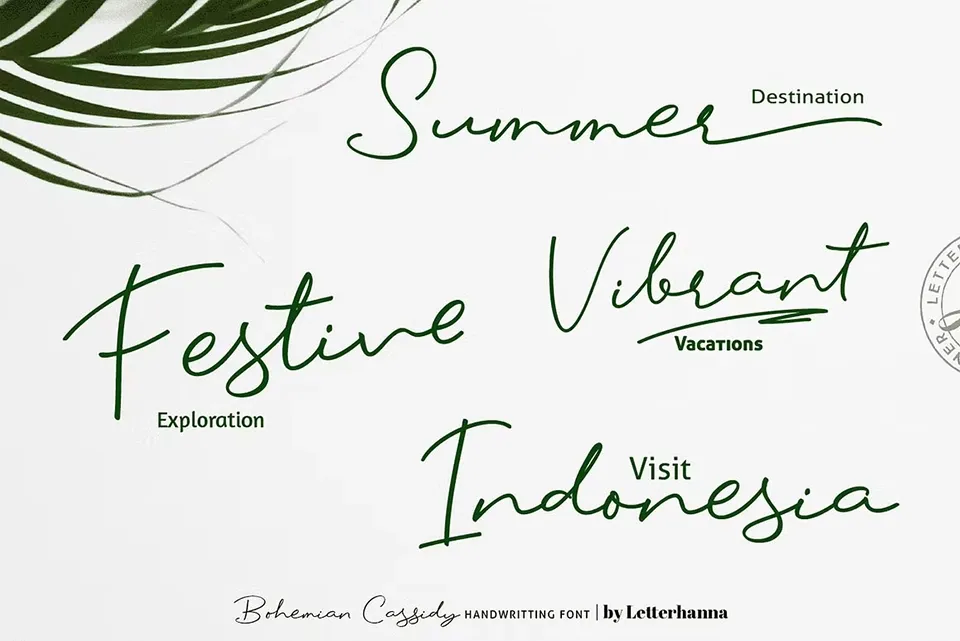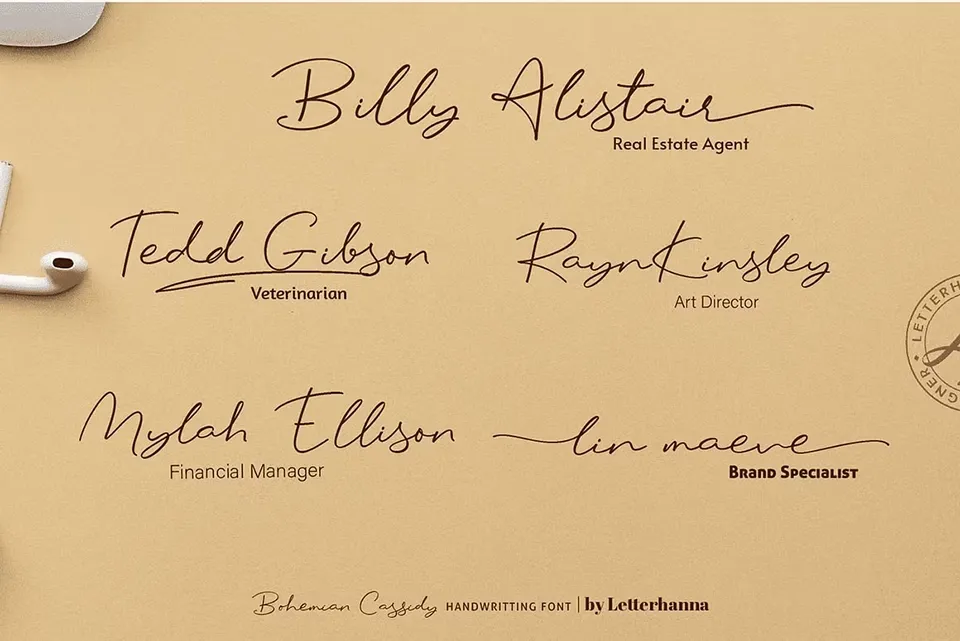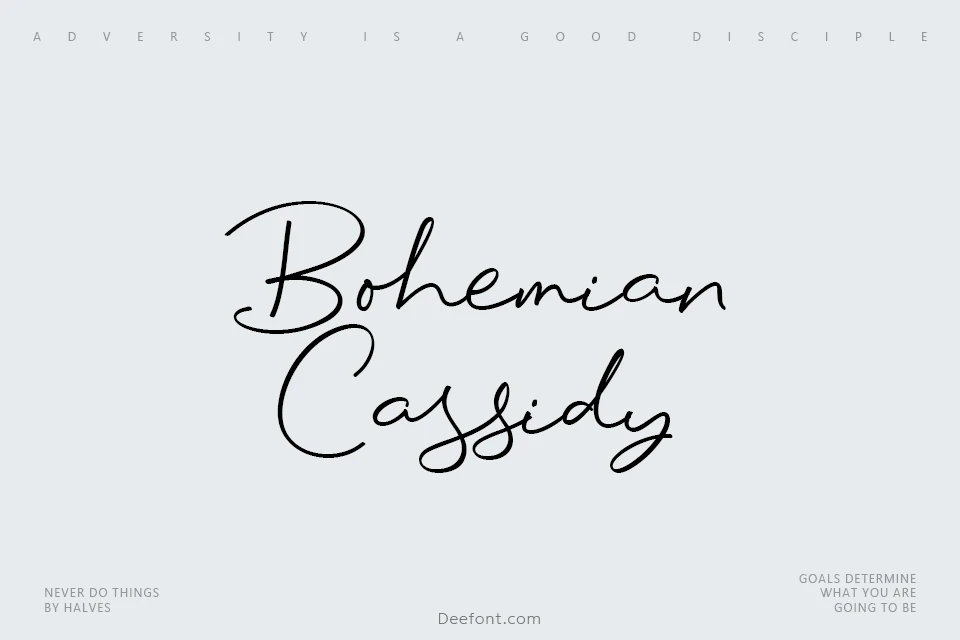
Bohemian Cassidy Font
Bohemian Cassidy Font, a lovely handwriting script font created by Letterhanna Studio. This font features a flowing, handwritten style with smooth, connected strokes, offering a blend of casual elegance and charm. It’s perfect for creating charismatic impressions in signatures, logos, wedding materials, posters, branding, and greeting cards. Bohemian Cassidy provides a unique, personal touch, ideal for projects needing a warm, handcrafted feel. It is also PUA encoded, allowing easy access to all its glyphs and swashes for versatile design options.